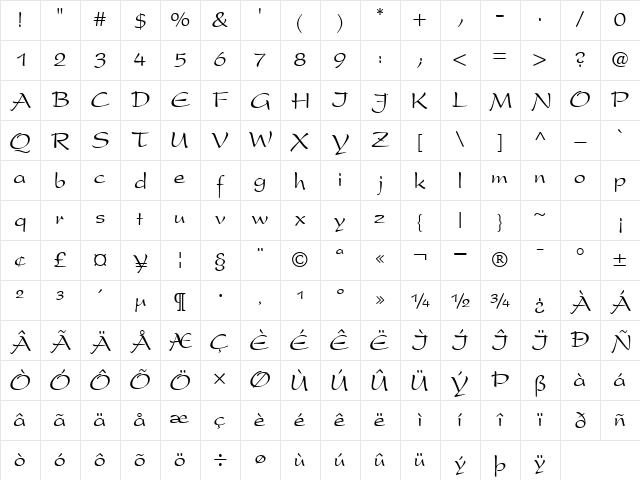
Design Context for SnippetScriptSSK
SnippetScriptSSK flows with the natural rhythm of handwritten lettering, making it ideal for designs that call for warmth and personal expression.
Font Pairing: Combine SnippetScriptSSK with a simple geometric sans for maximum contrast - the tension between flowing curves and clean structure is a classic typographic pairing.
Pro Tip: Use SnippetScriptSSK for short runs of text - names, titles, or taglines. Extended body copy in script faces tires the eye quickly.